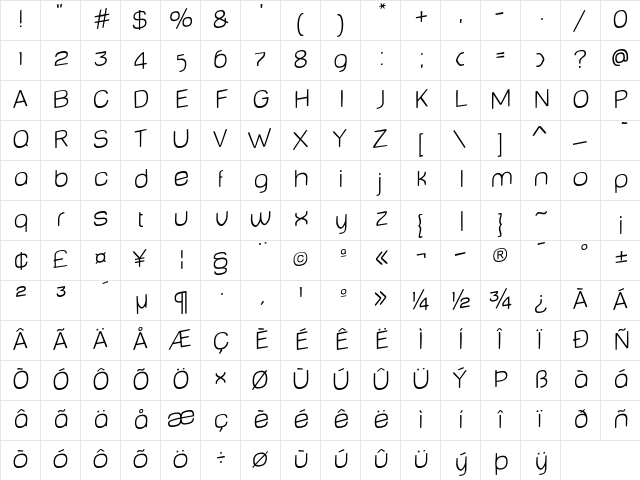
Baby MineThinJumping
Design Context for Baby Typeface
Baby offers clean, dependable letterforms without strong stylistic allegiance, making it a practical choice for designers who need flexibility. The delicate stroke weight brings airiness and refinement to layouts.